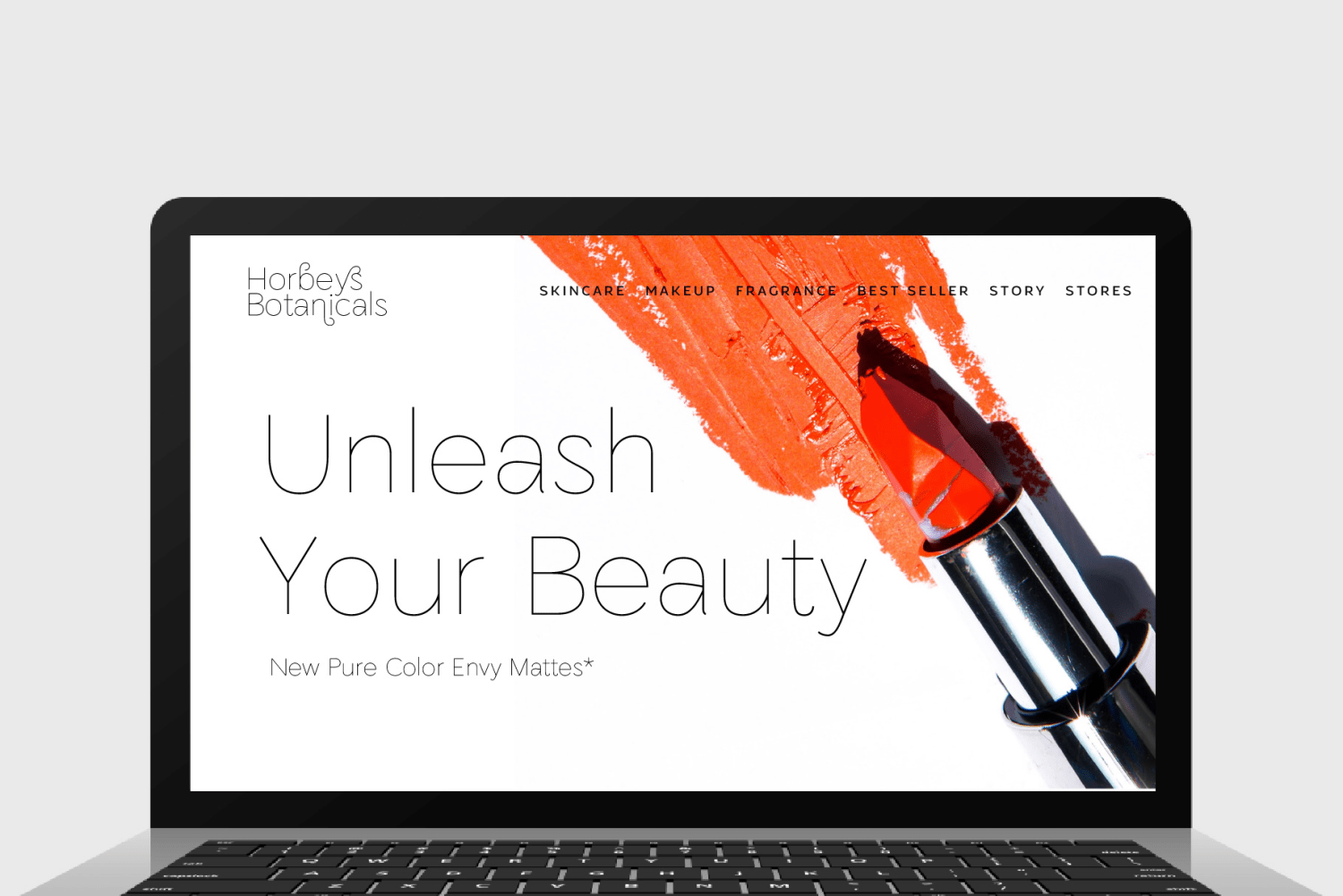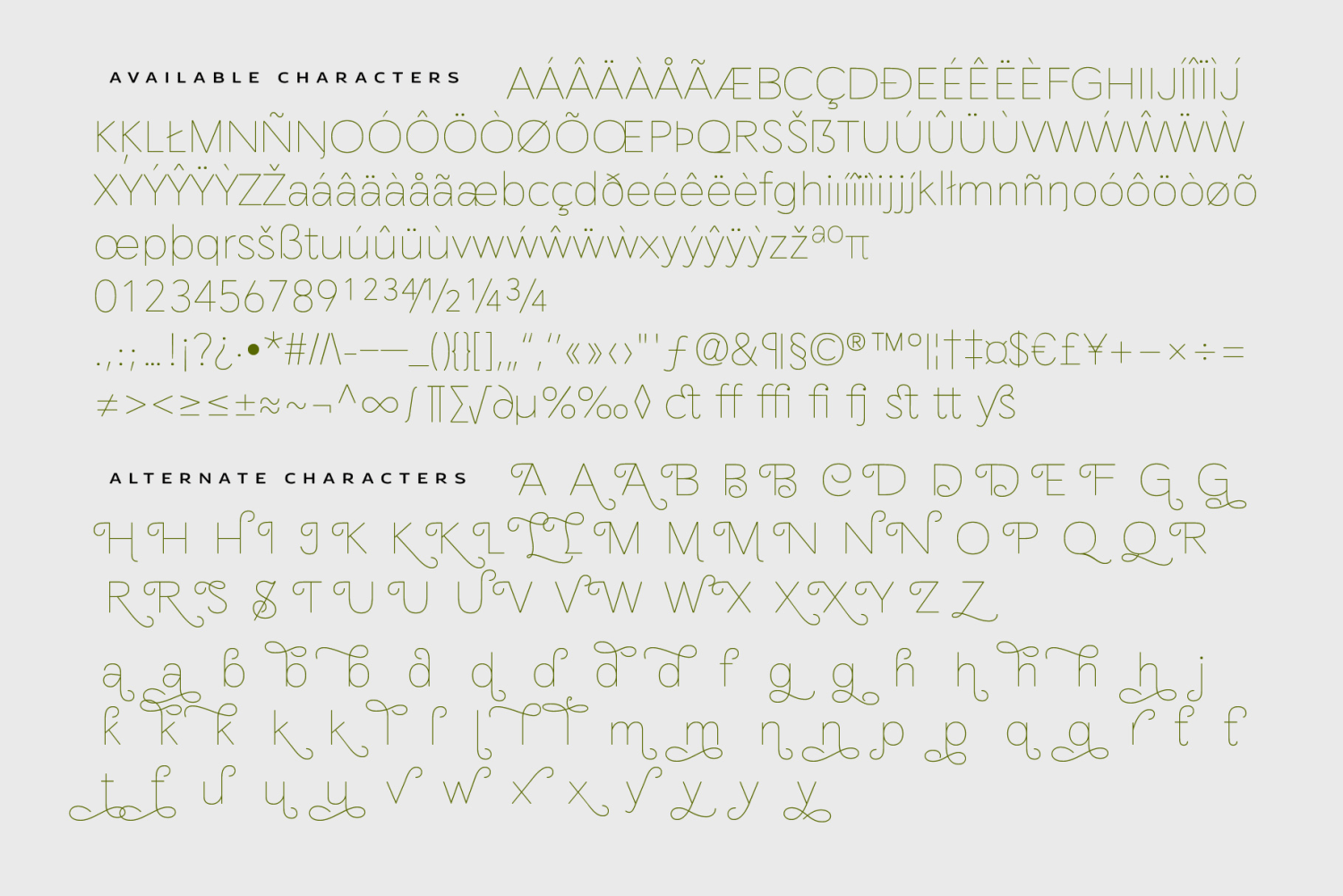
Auvelle
Font Family by AF Studio
Inspired by a luxurious & elegant brand that use minimalist design language. Auvelle created in a simplicity, a minimalist, luxury and also looks elegant. Designed for a Display fonts that perfectly fits for Headlines, Logo, Branding, Packaging, T-shirt, or any design with a stand out or big typography.
Auvelle Comes with an option for alternate characters Uppercase and Lowercase. Swash button on adobe program are triggering the initial swash on uppercase, It's great when use for Title Case or Sentence Case. Standard Ligatures & Discretionary Ligatures.